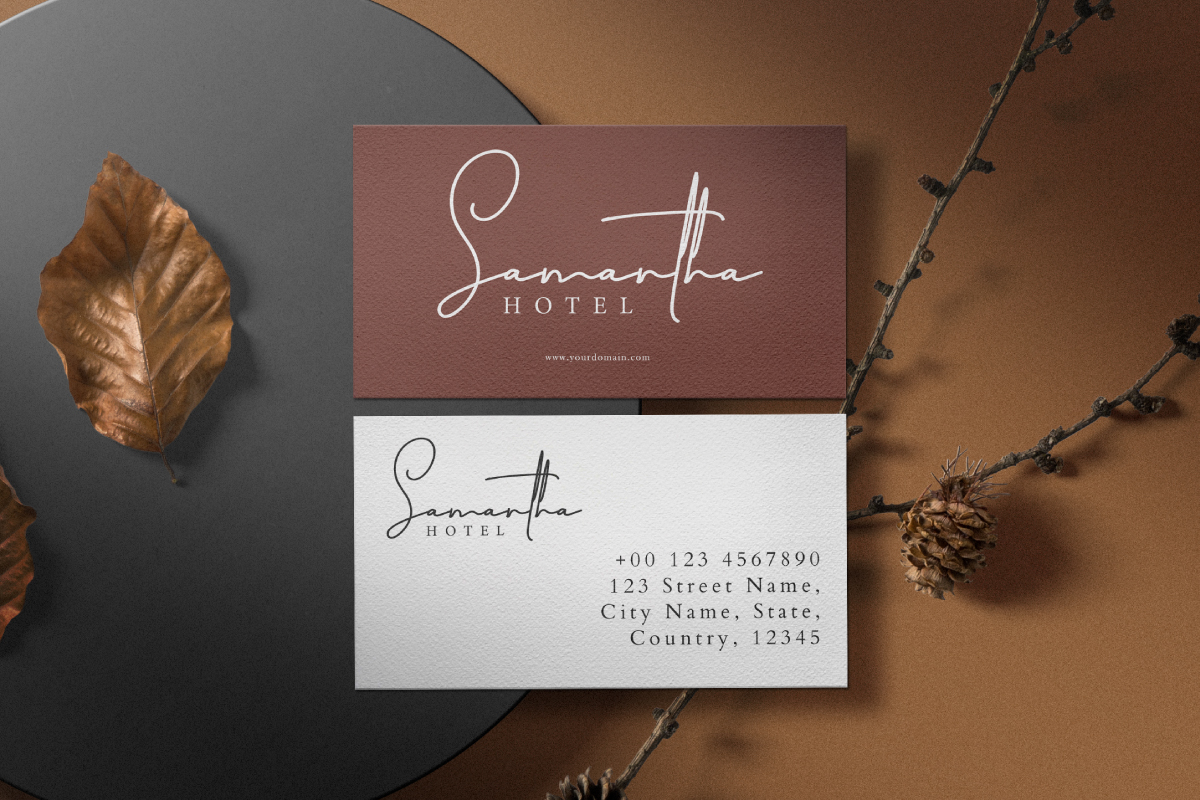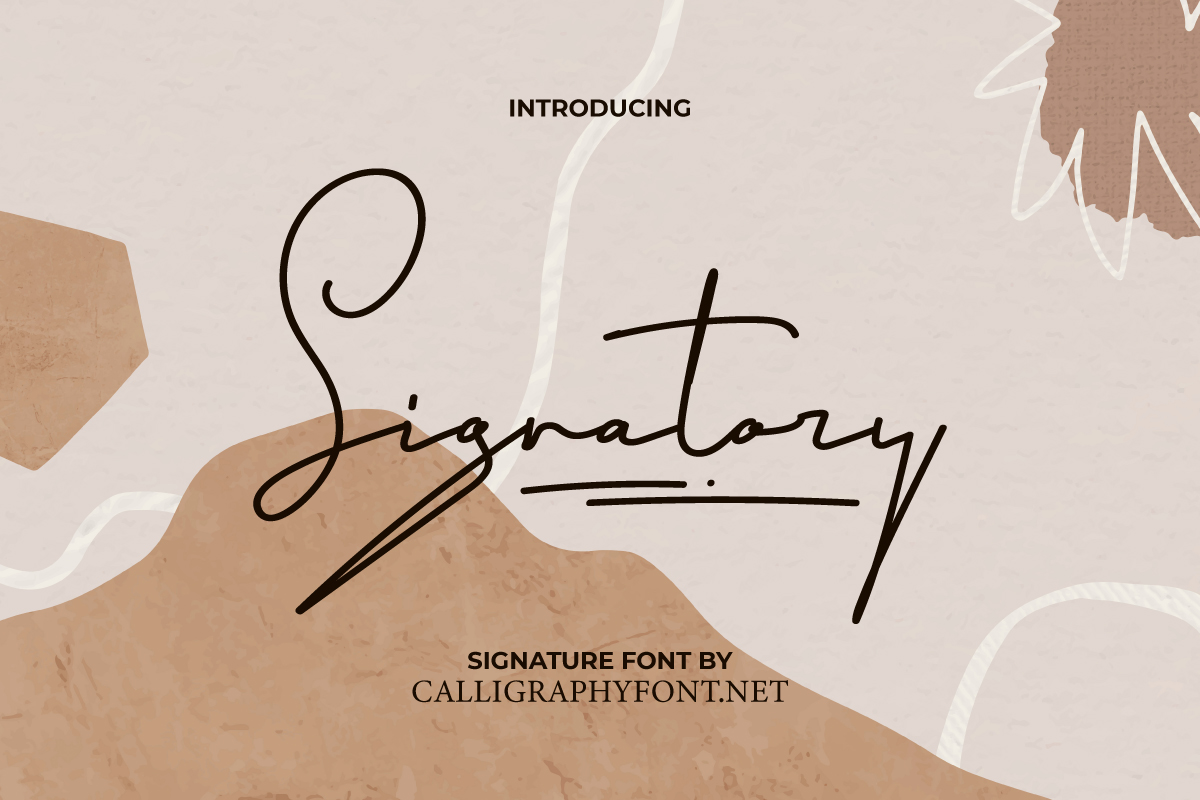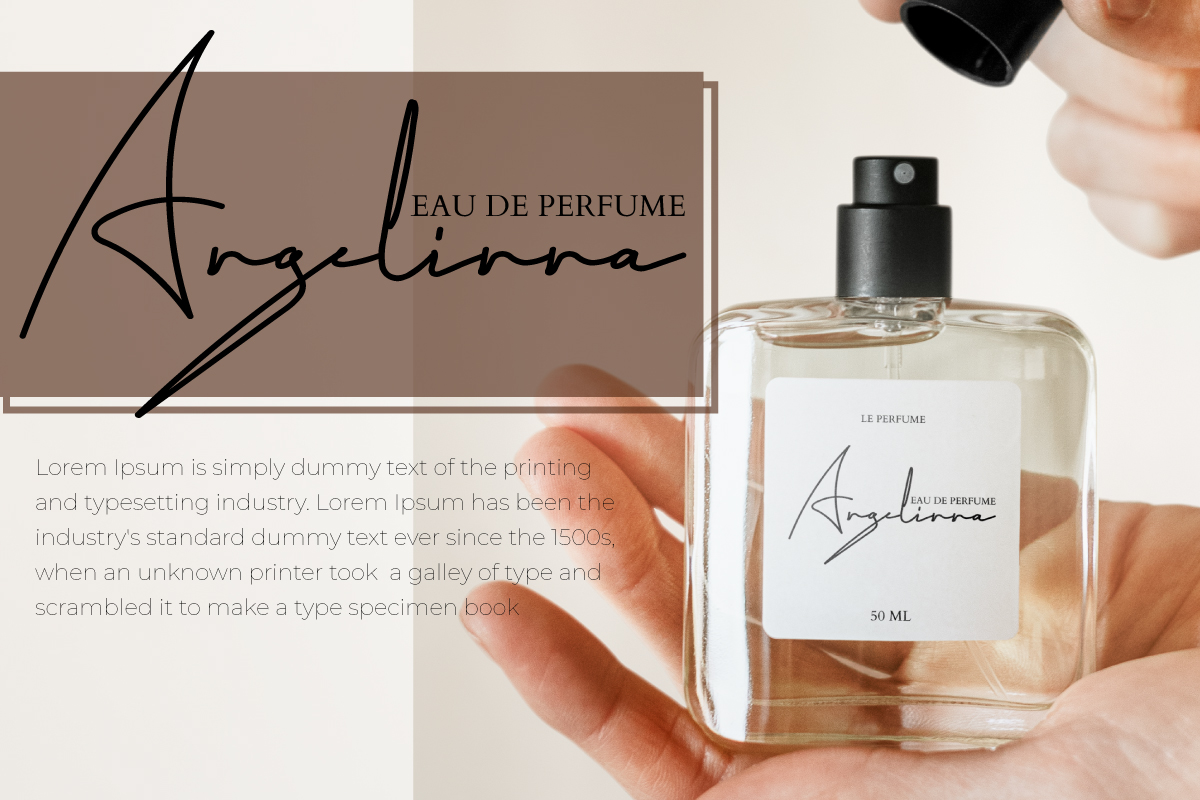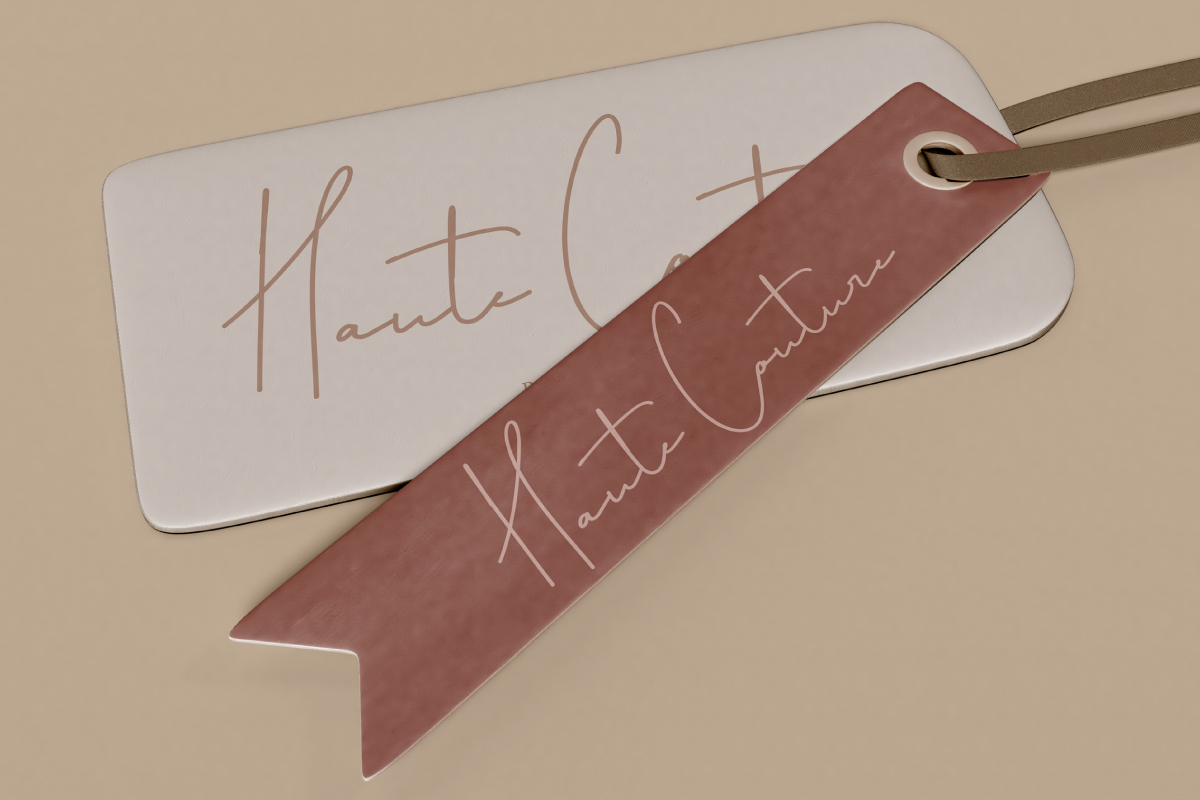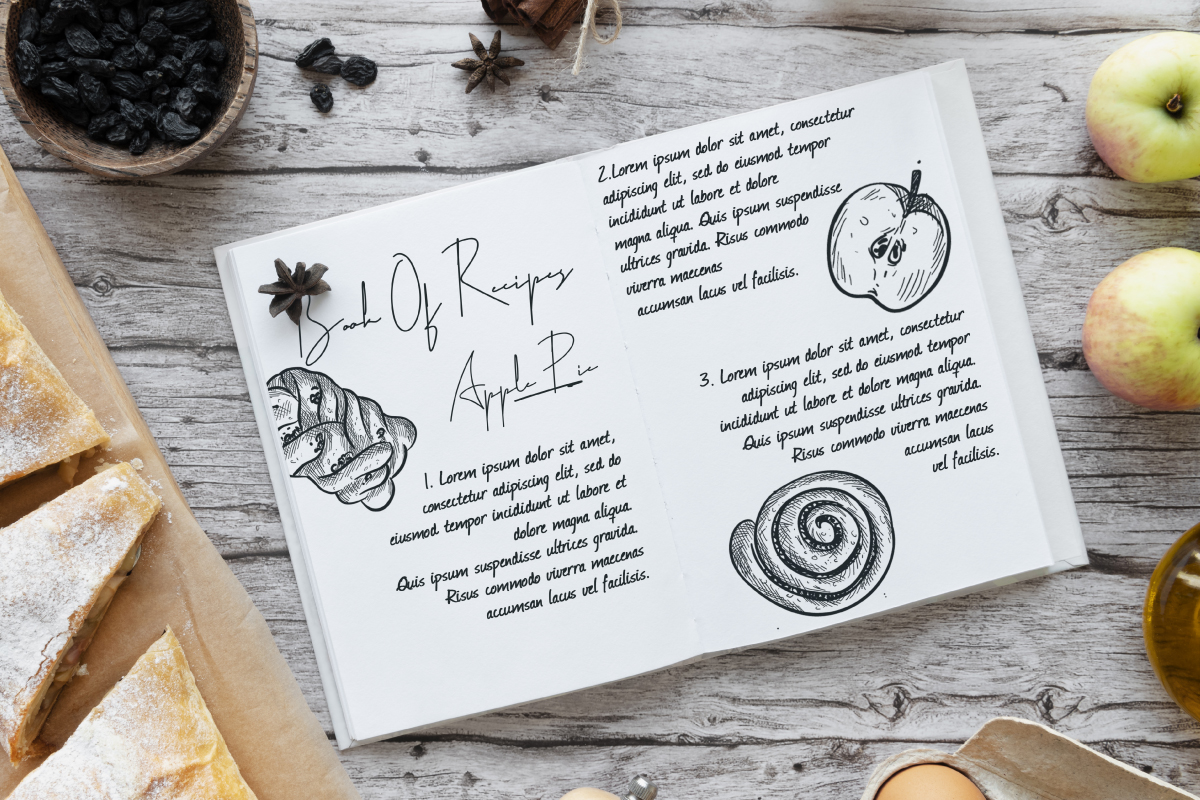
Signatory Font
Signatory Script Font
This is an authentic handwritten style that has the perfect beauty value between casual and feminine. It’s perfect for book cover, business card design, fashion brand, greeting card, homeware design, label, logo, mug, photography, product packaging, quote, shopping bag, special event, t-shirt, title, wedding invitation, and any project that requires a beautiful script feel.